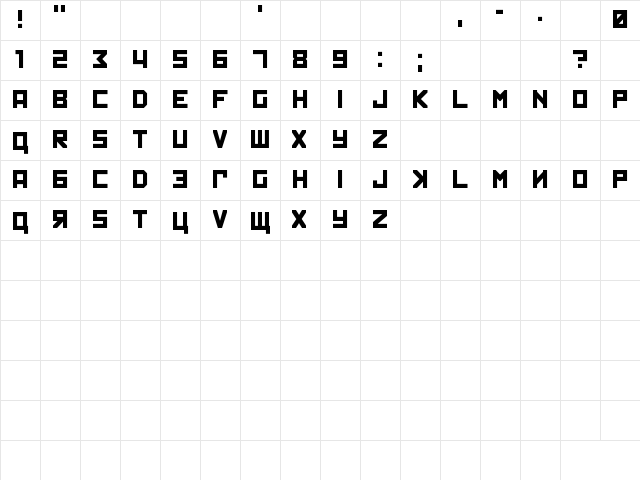
Kremlin Regular
Kremlin Family
Kremlin Regular
Design Context for Kremlin
Kremlin is a composed and adaptable typeface that performs quietly and consistently across a wide range of design contexts.